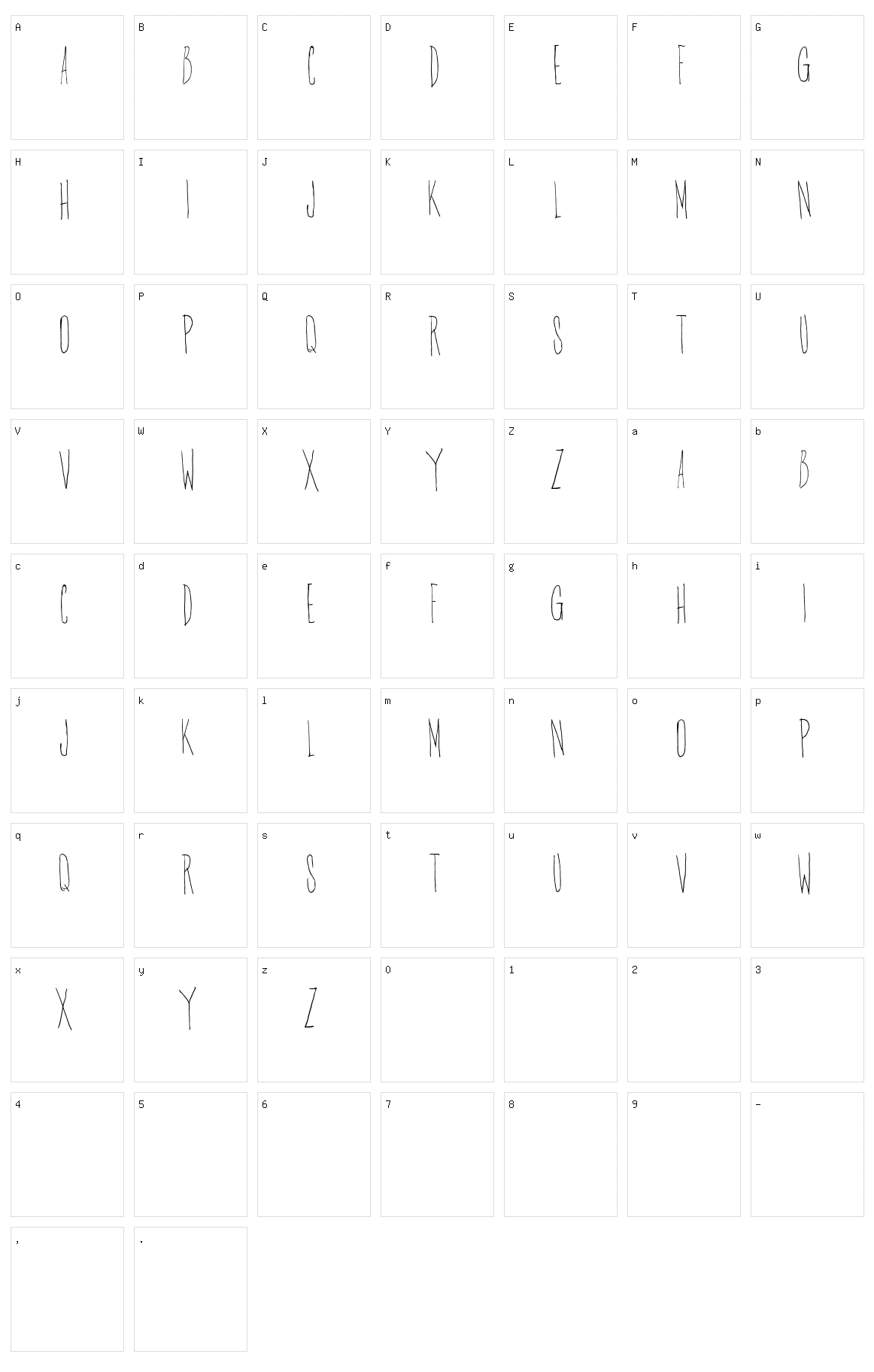
The free font Gascoigne is carefully designed by Ritchtype, showcasing a thoughtful balance of creativity and usability and falls under the Script font style. When you download the ZIP file, it contains only 15.77 KB of font files, making it lightweight and quick to download. Please review the license details below to understand permitted usage and distribution rights. If license information is not available, we recommend using this font for personal projects only or contacting the author directly for commercial usage permissions.